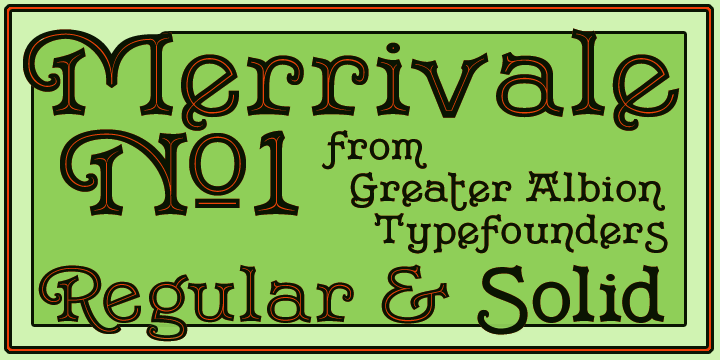
Merrivale is an ideal example of the benefits of keeping ones eyes open- it was inspired by the gilt-finished raised lettering on a late Victorian shopsign in Melbourne, Australia.
The family of seven faces include upper and lower case forms, small capitals, all capital forms, and flamboyant display forms. Extensive Opentype features are incorporated. All faces are offered in incised forms inspired by the original lettering as well as in solid black filled forms. Thsee typefaces are wonderful for signage where either a period air or a dignified but legible feel are required. They also lend themselves to other display uses such as posters, book covers and so forth and are ideal for the title lines of certificates.